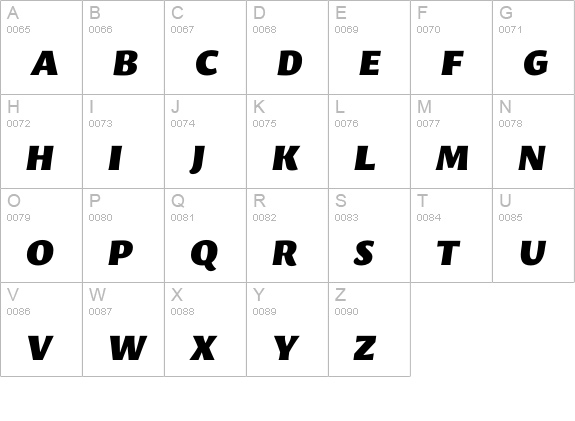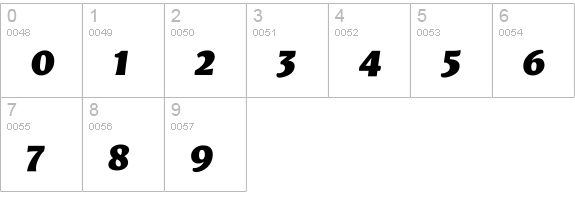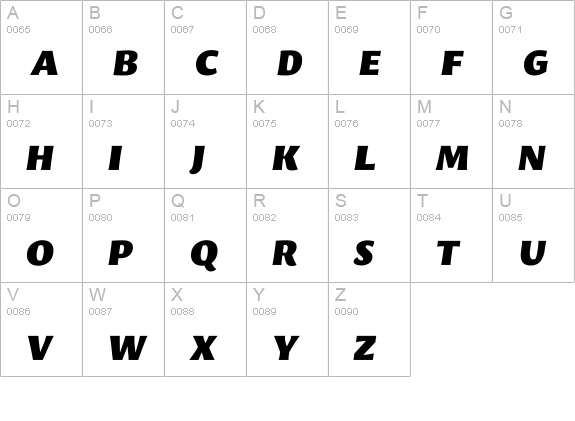
Leksa Sans Black Italic is a maximum-weight, dramatic, italic variant in the Leksa typeface family \xE2\x80\x94 well suited to maximum-impact headlines, posters, and packaging.
Leksa Sans Black Italic font is a bold and dynamic typeface that exudes modernity and sophistication. With its sleek lines and sharp angles, this font commands attention and adds a touch of elegance to any design project. The italicized style of Leksa Sans Black gives it a sense of movement and fluidity, making it perfect for conveying a sense of energy and momentum. What makes Leksa Sans Black Italic font even more appealing is that it is available for free download at FontsMarket.com. This means that designers and creatives can easily access this high-quality font without any cost, making it a valuable addition to their font library. Whether used for branding, advertising, or editorial design, Leksa Sans Black Italic font is sure to make a bold statement and elevate any project to the next level.